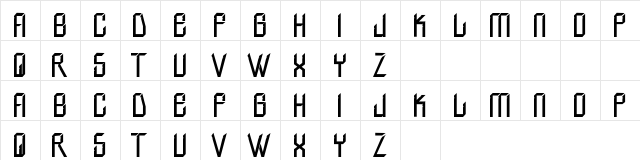
H74 Valkyrie Regular
Design Context for H74 Valkyrie Typeface
H74 Valkyrie is a composed and adaptable typeface that performs quietly and consistently across a wide range of design contexts.